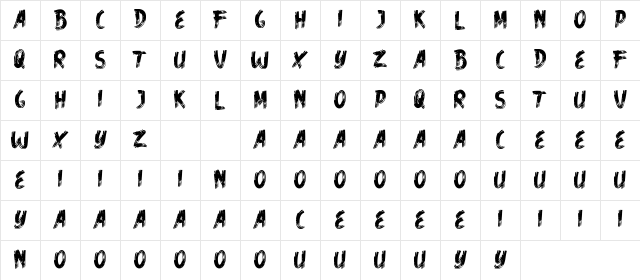
Rashean Demo Regular
Foundry: Edric Studio
Designer: Ali Alif Rahman & Suci Anita
Design Context for Rashean Demo
Rashean Demo is a composed and adaptable typeface that performs quietly and consistently across a wide range of design contexts.